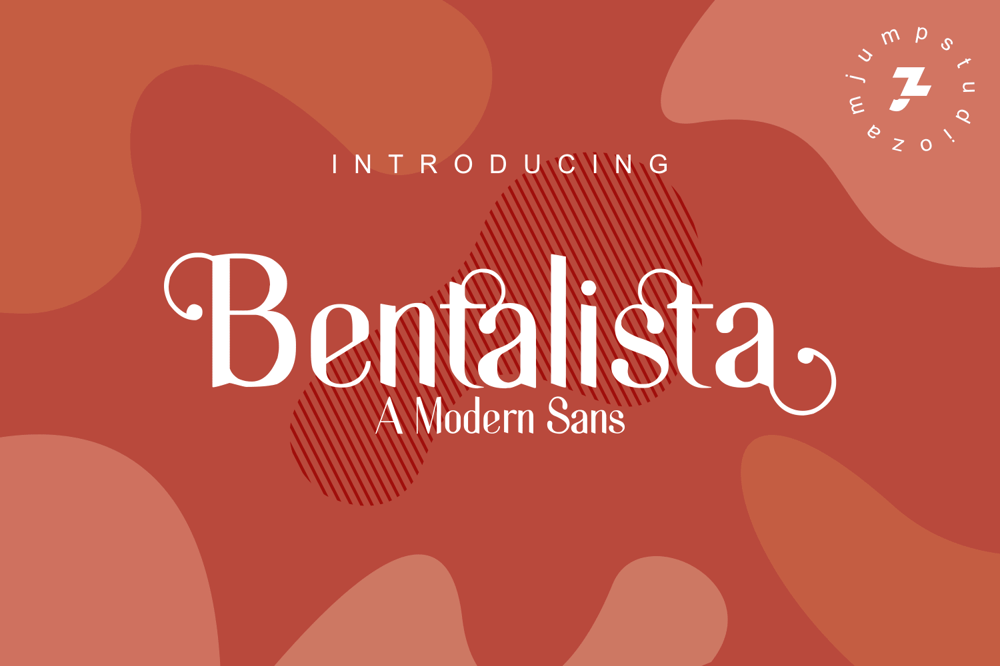
Bentalista Font Family was designed by Zamjump and published by Zamjump. Bentalista contains 1 styles and family package options. Introducing Bentalista a modern sans typeface with lots of alternative characters, multilingual support, and unique ligatures. Bentalista is a very versatile font, easy to work with and perfect for creating minimalist style logos, labels, package designs, text for t-shirts, hoodies and much more.Features:Uppercase + Lowercase lettersNumbers + PunctuationSwash featureOpenType FeaturesMultilingual support OpenType features (ligatures and alternatives) help make your writing more interesting. There are also alternating swashesSoftware for using this font: Adobe Illustrator, Adobe Photoshop, Adobe Indesign, Word, Corel draw, inkscape).